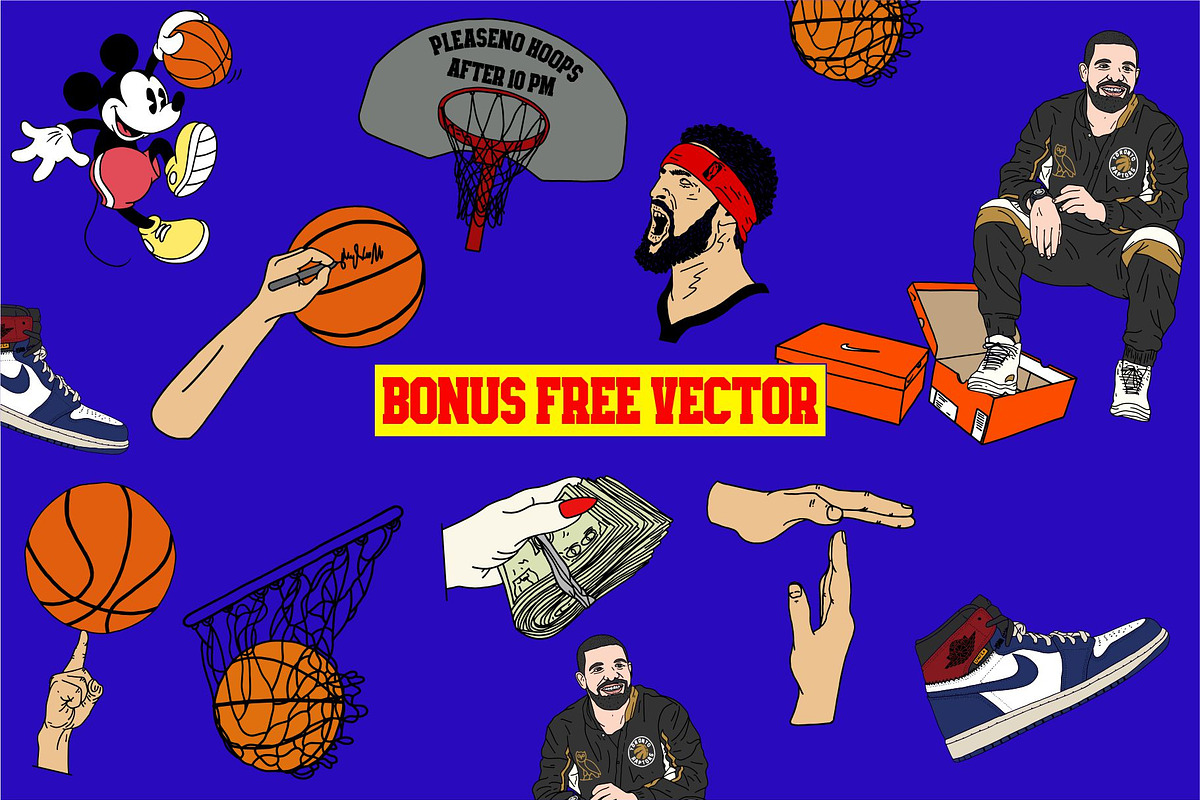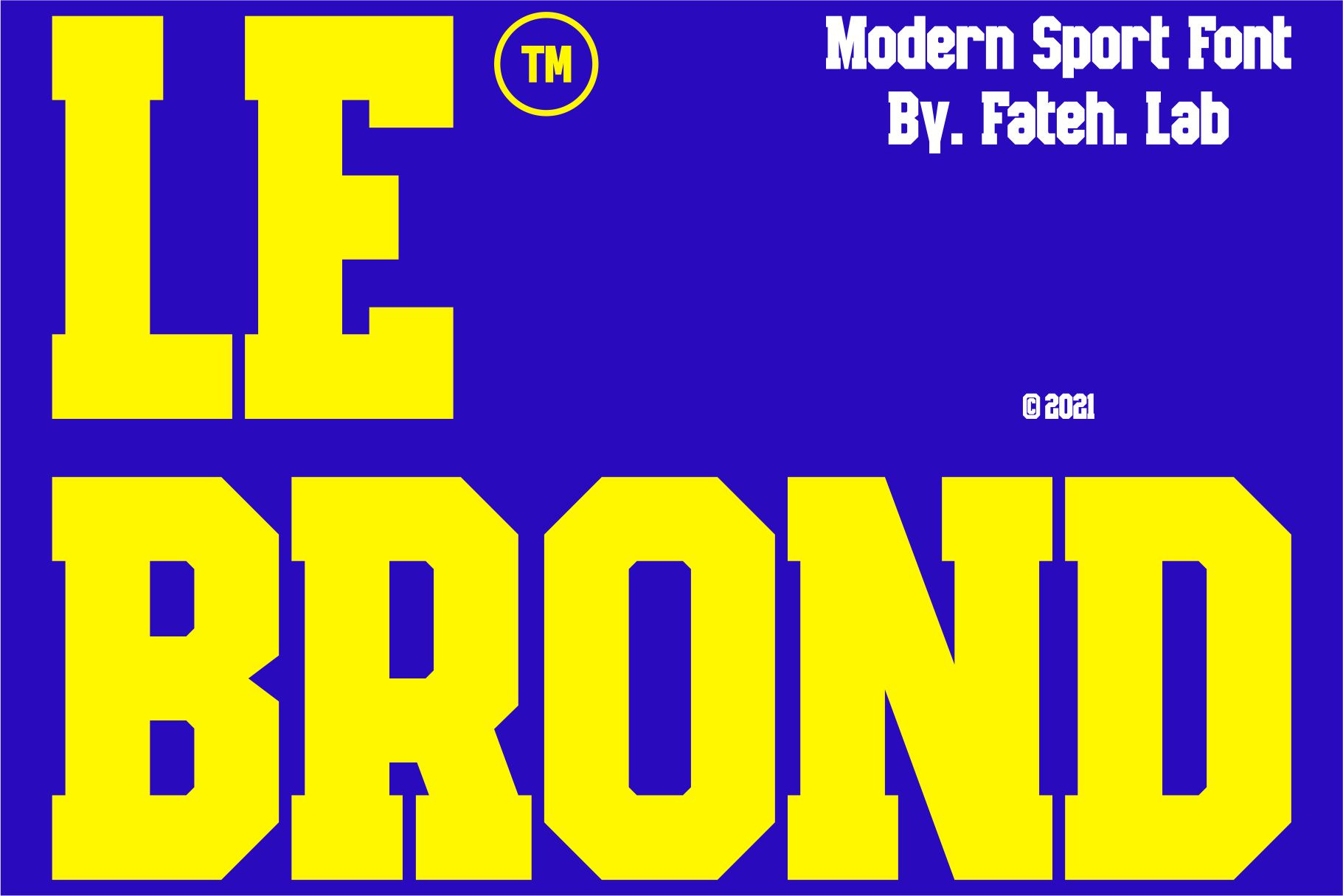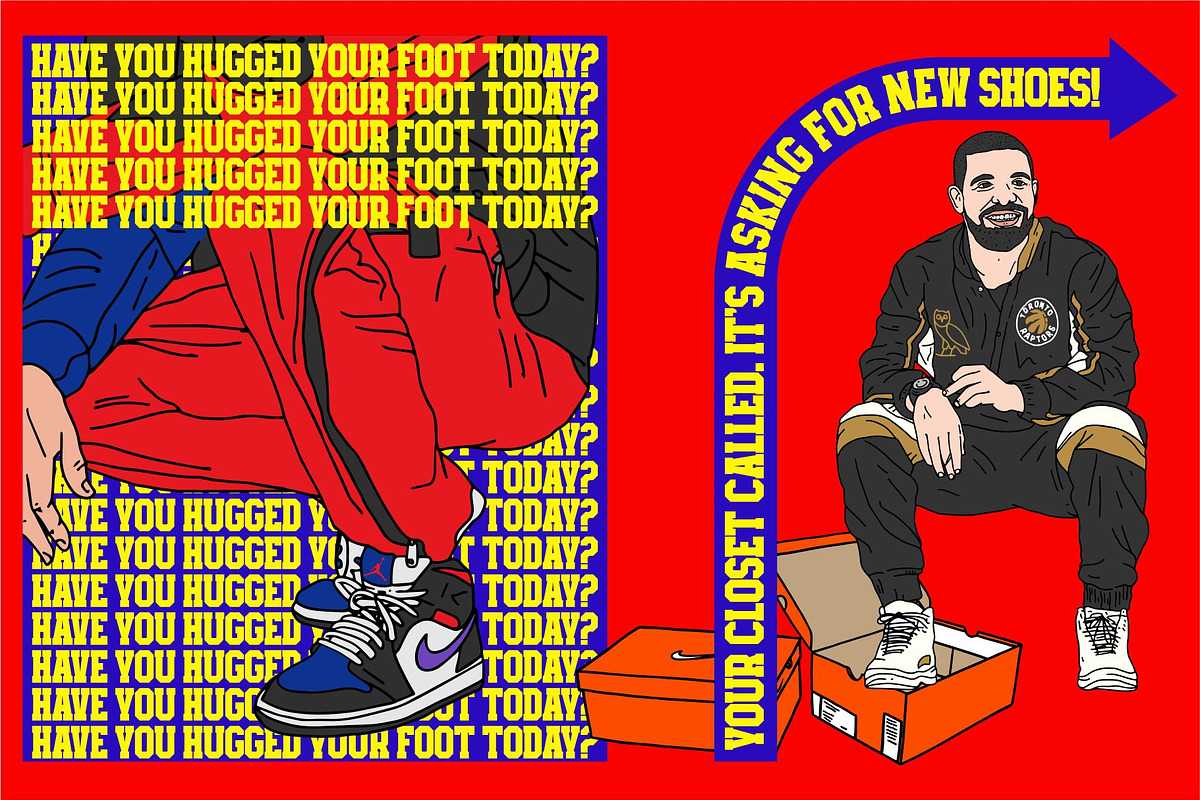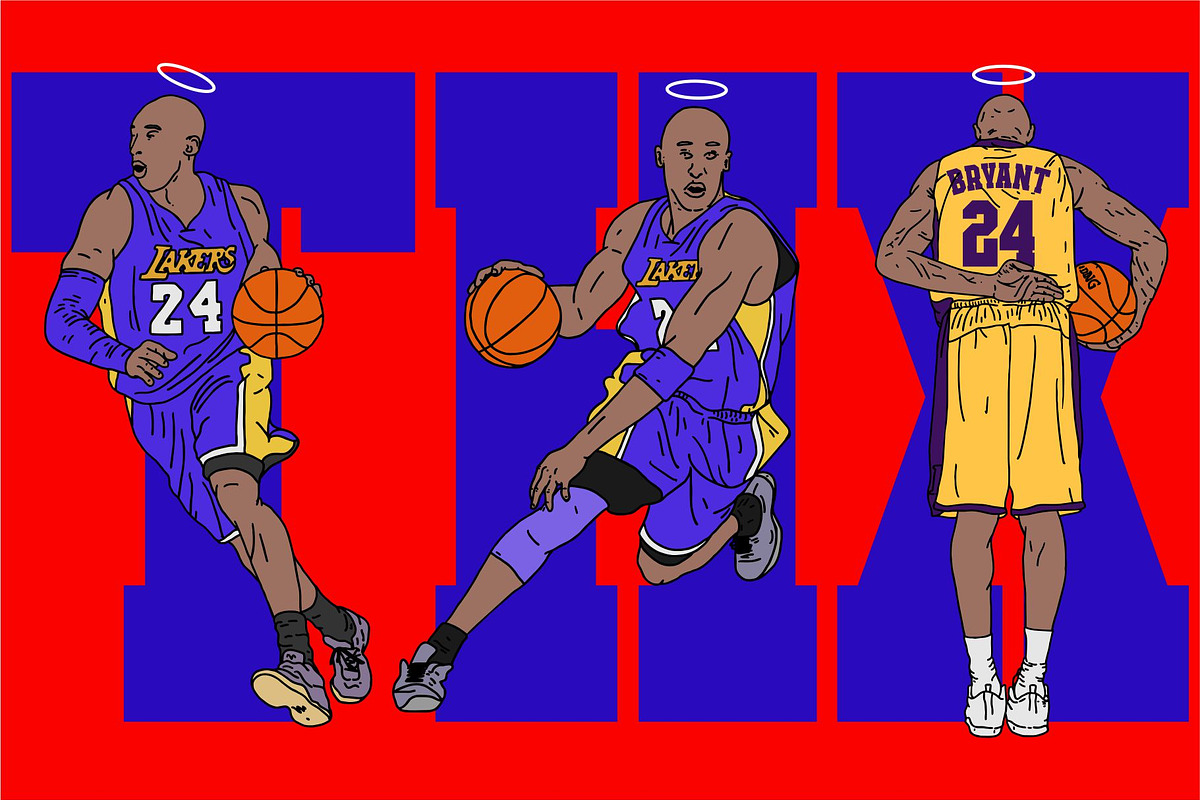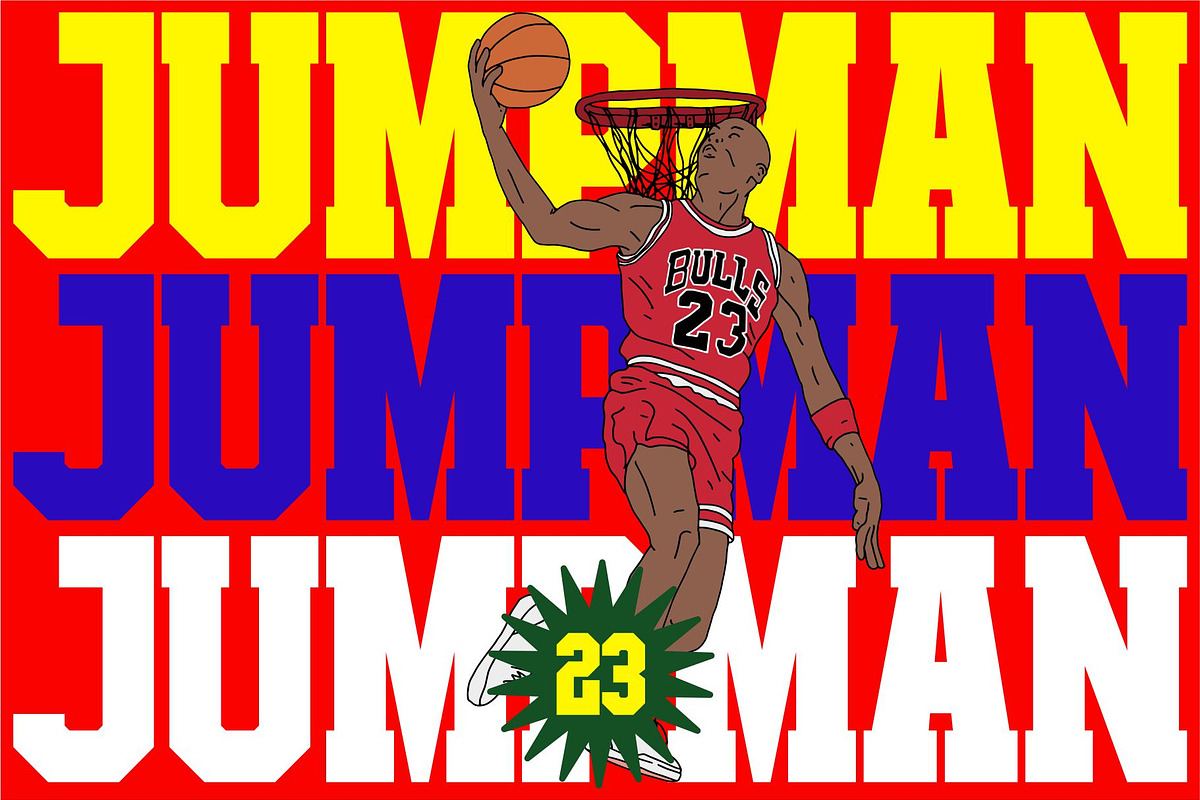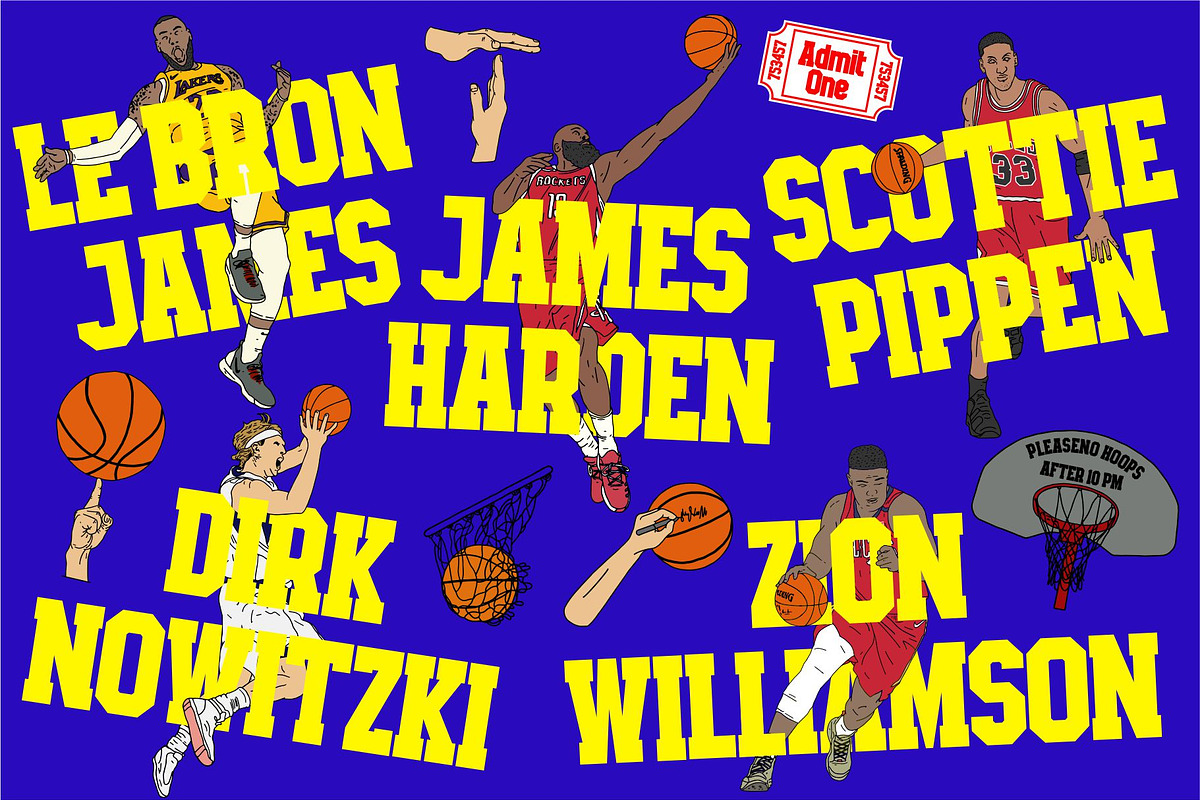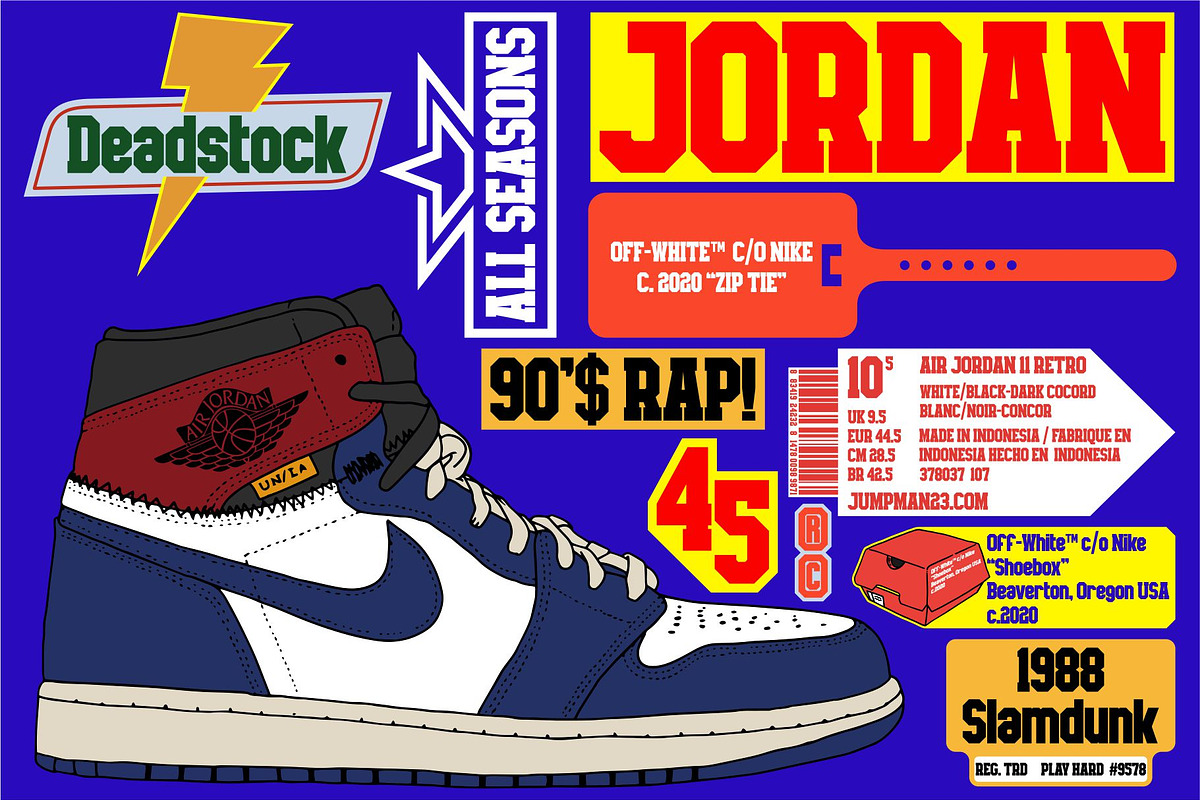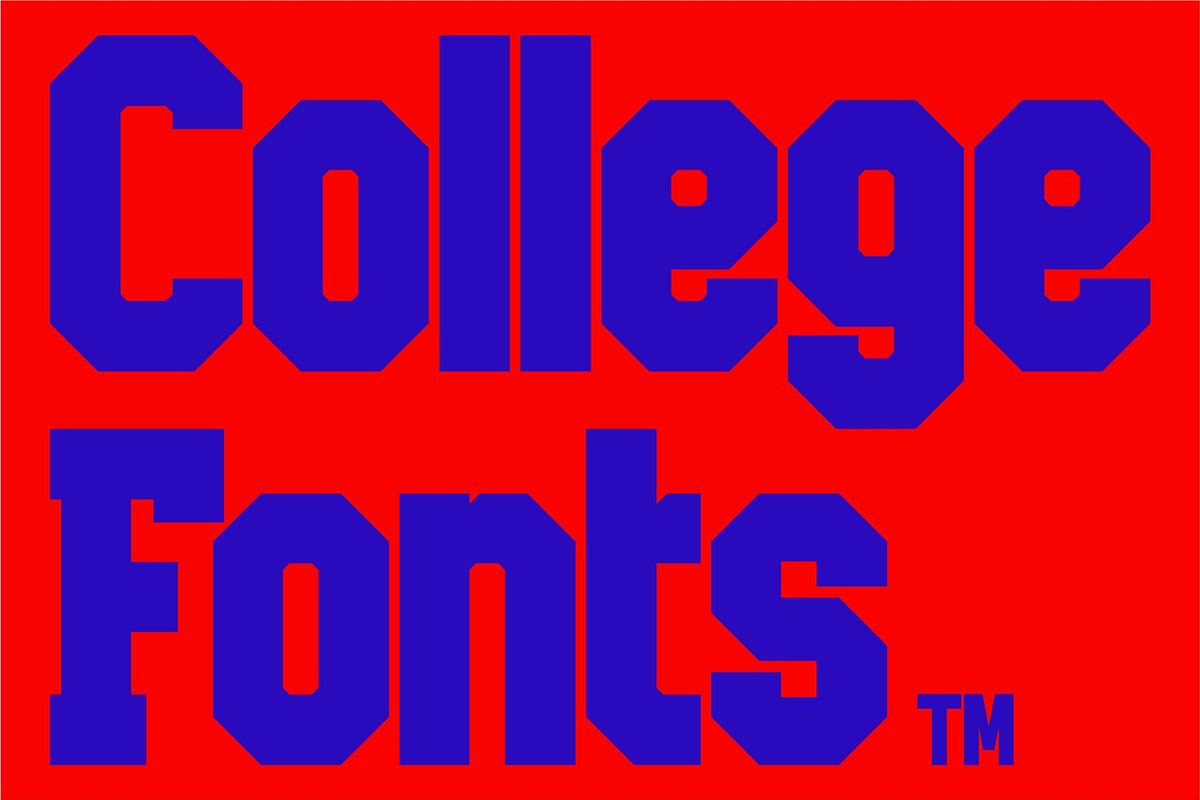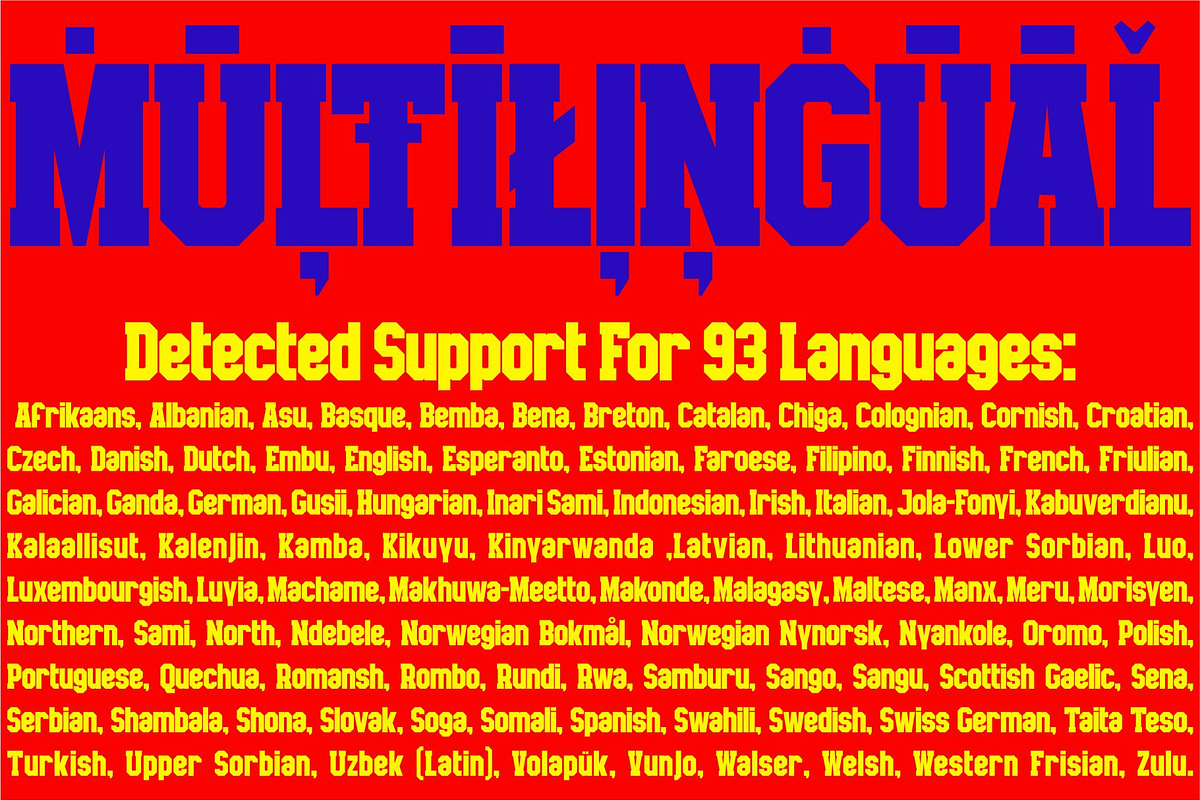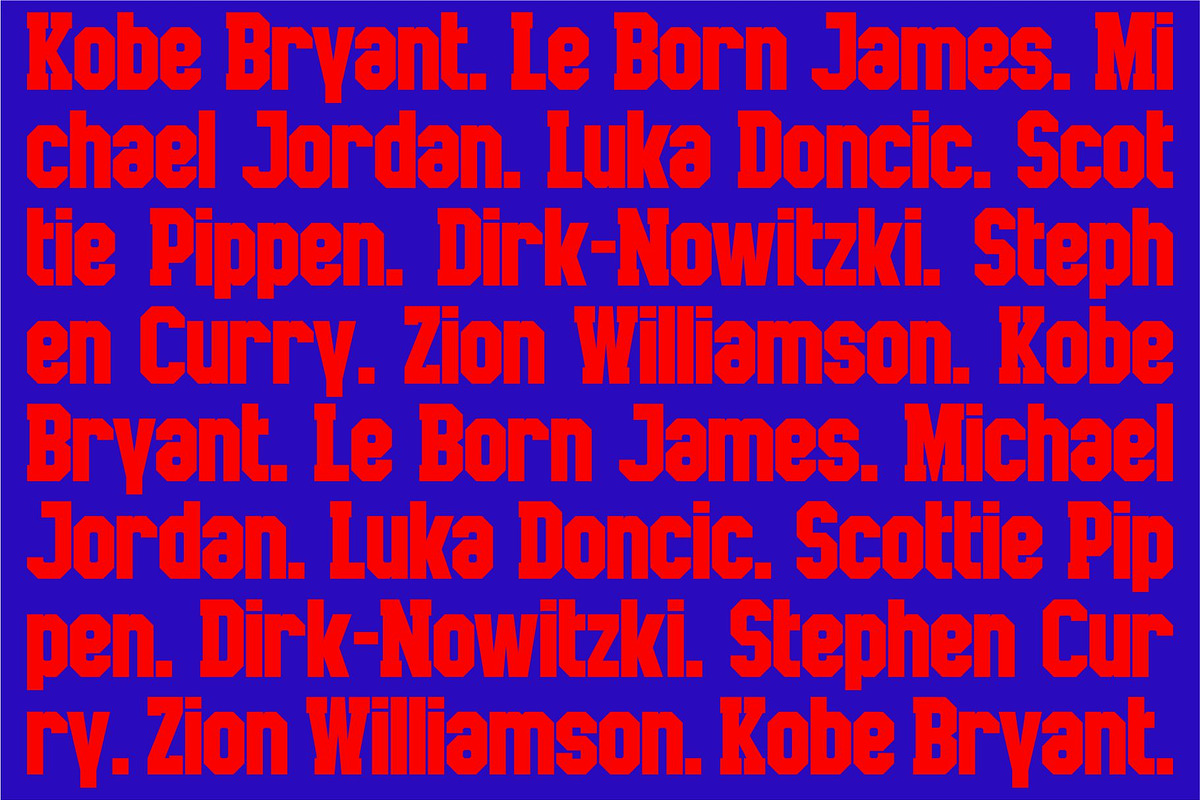
Le Brond | Modern Sport Font
Le Brond is a sporty, strong and elegant typeface, in a college style. Inspired by design styles that are currently popular, and this is the answer to every need for ideas that you will pour in this modern era, with a thick and sturdy style in each letter as if this font has a soul in it.
It excels in posters, social media, headlines, large format print - and anywhere else you want to get noticed.